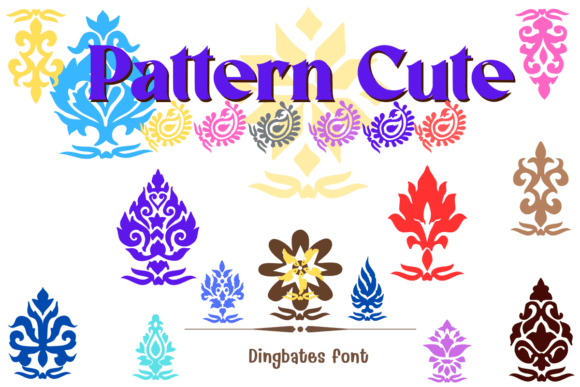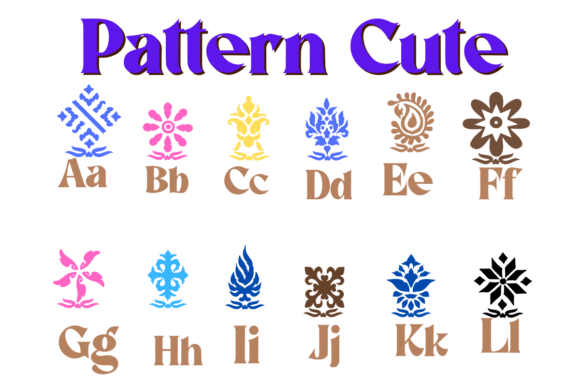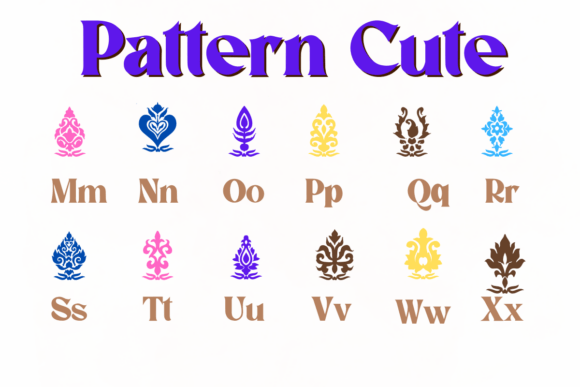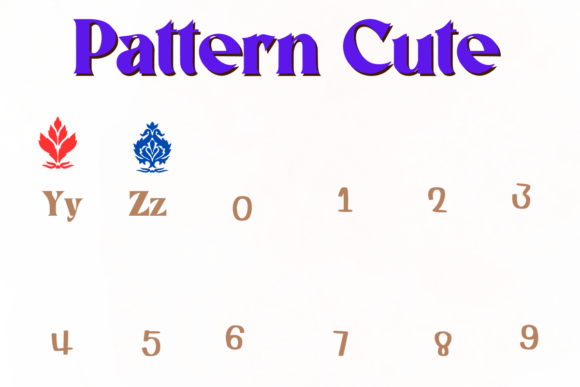
Pattern Cute Font
About the Pattern Cute Font
Unleash your creativity with Pattern Cute Font, a versatile font perfect for a wide range of applications. Pattern Cute is a dingbats font with an abstract theme. This font can enhance your creative projects such as wedding invitations, DIY, crafts, decorations, logos, and many other creative ideas.
Pattern Cute’s playful, abstract nature makes it ideal for branding projects targeting a young, creative audience, particularly in contexts like social media graphics, short promotional materials, and packaging for craft supplies or children’s products. It excels in headlines, logos, and short decorative elements, adding a whimsical touch. However, its intricate detail makes it unsuitable for body text or UI elements where readability is paramount.
For optimal visual harmony, pair Pattern Cute with clean sans-serif fonts like Open Sans or Lato for a balanced contrast of playful and legible elements. Alternatively, a simple serif font such as Merriweather can lend a touch of classic elegance to offset its whimsical nature. Avoid pairing it with other highly decorative fonts, as this can create visual clutter.
The overall personality is undeniably cheerful and lighthearted, suitable for brands projecting fun, creativity, and approachability. Its abstract forms prevent it from being suitable for projects requiring a more formal or serious tone.
Pattern Cute Font Usage Examples
Pattern Cute Font Example